People often choose a font simply because it looks attractive. In reality, branding is about far more than appearance. A typeface doesn’t just display words it conveys personality. The right font can make a coffee shop feel warmer, a fashion label appear more luxurious, or a local product look more refined without changing a single word.
Rather than debating which font is “the best,” this article reviews ten fonts from the perspective of a typography editor. Instead of focusing on technical specifications, we’ll explore when a font feels right, the personality it conveys, and the types of projects where it truly shines.
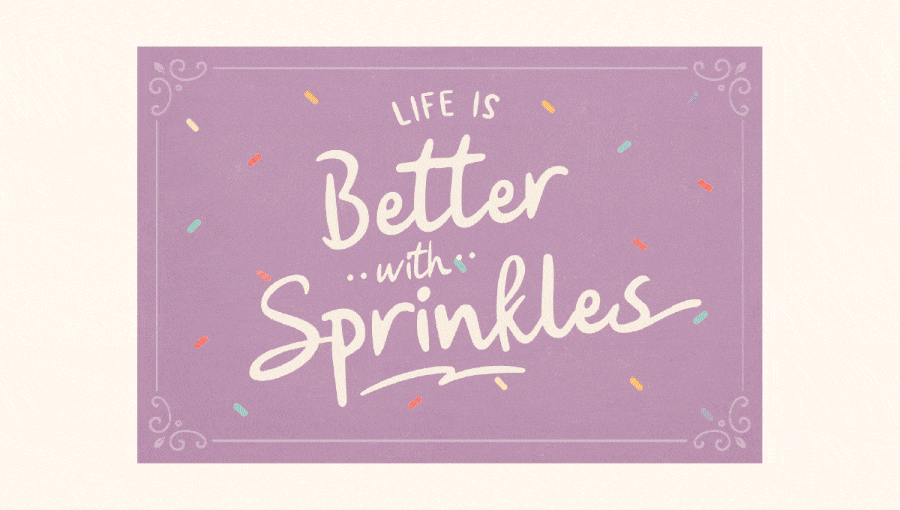
Best for: Food branding, snack packaging, kids’ products, playful social media
Some fonts instantly make a design feel busy, while others make it feel joyful. Snack Break belongs firmly in the second category.
Its handwritten style feels spontaneous, almost as if it were written with a marker directly onto food packaging. The result is relaxed, genuine, and instantly likable. It doesn’t strive for perfection—and that’s exactly what makes it so appealing.
I find that Snack Break performs best when used with restraint. Let it take center stage in your headlines, then allow a supporting typeface to handle the body copy.
Ideal for: Luxury branding, editorial design, fashion, premium packaging
Corner Stories is the kind of serif that doesn’t rely on excessive decoration to capture attention. Instead, it stands out through its elegant proportions, refined stroke contrast, and subtle details that immediately communicate sophistication.
This typeface has a distinctly editorial feel. Even a single word is enough to create an exclusive, high-end impression.
If I had to choose one font for luxury perfume or premium skincare packaging, Corner Stories would be among my very first choices.
Works best for: Handmade products, beauty brands, artisan businesses
Unlike many script fonts that aim for elegance, Cream Palette embraces warmth, softness, and authenticity. It feels like a handwritten note tucked inside a thoughtful gift.
There’s an organic quality that helps brands feel more personal and approachable.
I especially like Cream Palette for small businesses that want to feel sincere rather than luxurious. It feels far more human than many modern script fonts.
Personally, I’d use it for: Fantasy branding, gaming, movie posters, entertainment
Norvel Fantasy isn’t a font designed for every project and that’s exactly its strength.
It brings bold personality, dramatic presence, and limitless imagination. This is a display font that was made to command attention.
A great display font should build an entire world through its letterforms alone. Norvel Fantasy does exactly that.
An excellent choice for: Travel branding, coffee shops, creative campaigns
Rather than being a single typeface, Summer Archive feels like an entire atmosphere.
Each font evokes vintage postcards, seaside shops, summer road trips, and travel journals weathered by time. It’s perfect for brands looking to embrace nostalgia without appearing outdated.
Summer Archive feels less like a font collection and more like a ready-made mood board waiting to inspire your next project.
Some font duos feel forced. Postcard Daydream feels effortless.
Its serif and script complement each other beautifully, creating layouts that feel calm, airy, and refined. If you’re designing boutique hotels, resorts, lifestyle brands, or cafés, this is a font duo I’d confidently recommend.
One of the easiest font duos to work with. Even without extensive experimentation, the results already look polished.
Ideal for: Editorial design, posters, independent brands
As branding becomes increasingly polished, Common Place offers something refreshingly different.
Inspired by independent magazines, zines, and DIY culture, it delivers expressive character without sacrificing readability.
This font feels like the cover of an independent magazine that intentionally breaks every design rule and that’s exactly where its charm lies.
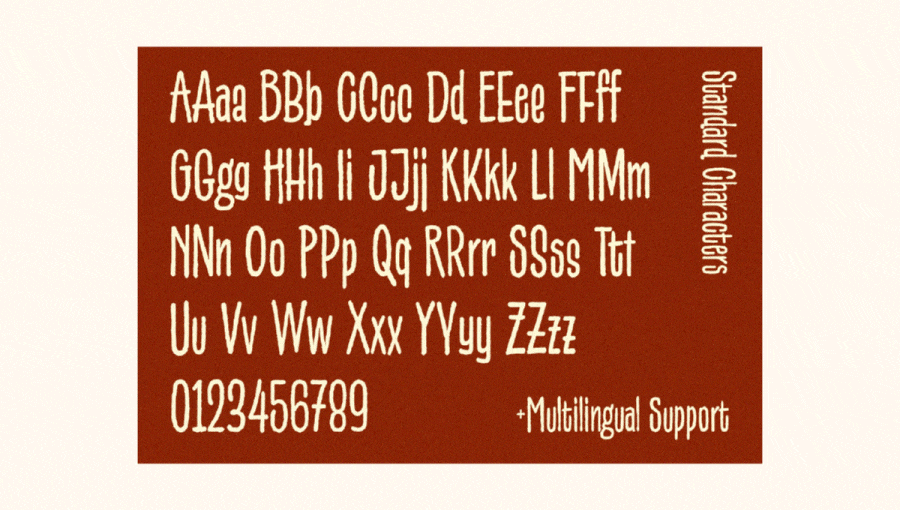
If you’re designing: Outdoor brands, streetwear, or adventure packaging, this is an outstanding choice.
Condensed fonts often feel overly corporate. Finder Hunger successfully avoids that trap.
Its narrow proportions are balanced by subtle organic textures that make the design feel lively and full of character.
If you’re searching for a condensed font that doesn’t feel corporate, Finder Hunger offers a refreshing alternative.
Best for: Heritage branding, artisan packaging, coffee brands
Many distressed scripts can feel overly rough. Enchanted Vintage strikes a thoughtful balance between authentic texture and readability.
Ultimately, the best font is the one that translates your brand’s personality most authentically. I hope these recommendations help narrow your options and inspire your next creative project.